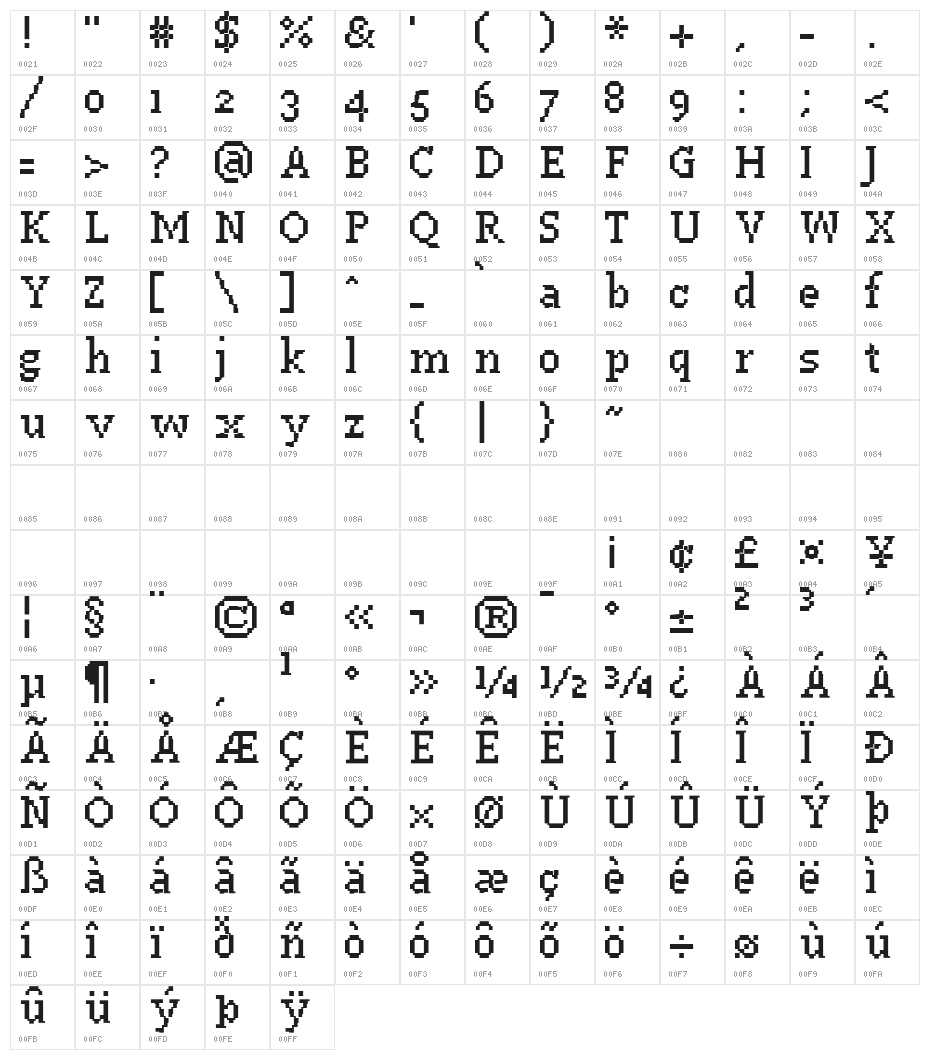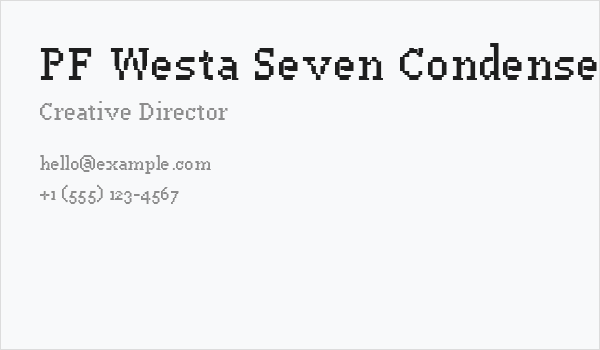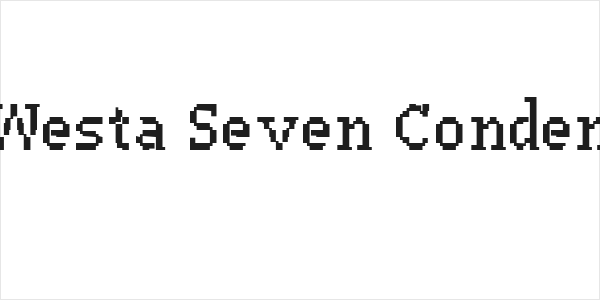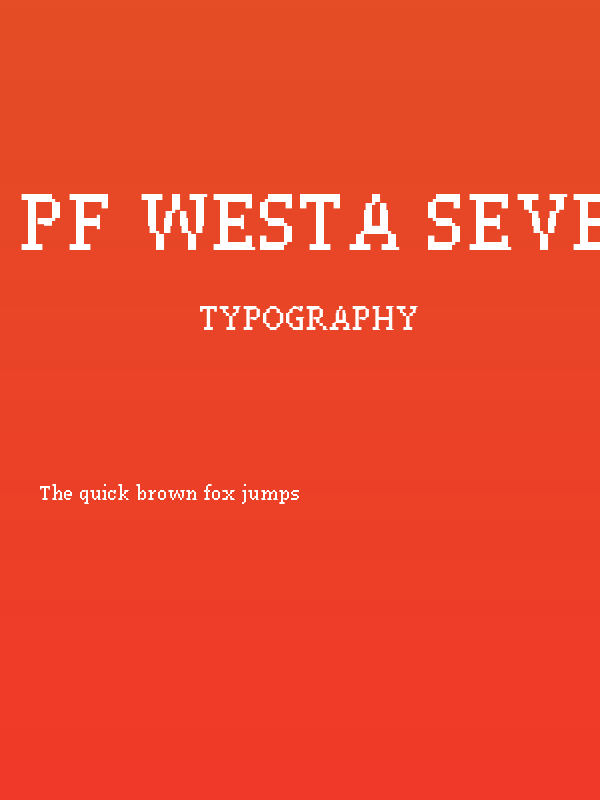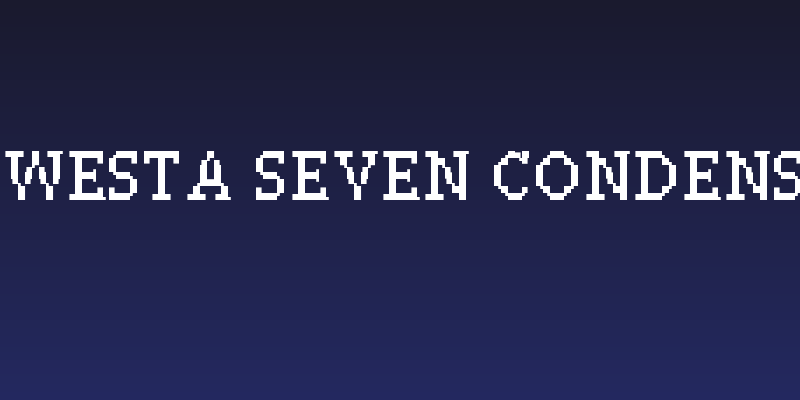
PF Westa Seven Condensed Font
PF Westa Seven Condensed Description
This font features a condensed style with a strong, geometric structure. The characters are bold and display a pixelated appearance, reminiscent of early digital typefaces. The uppercase letters are uniform in height, while the lowercase letters maintain a consistent baseline with slight variations in ascender and descender lengths. The numerals are robust and align well with the overall aesthetic, providing a cohesive look. Special characters are distinct and maintain the pixelated theme, ensuring readability and style consistency. The font's design is suitable for digital displays and projects that require a retro or tech-inspired look.
| Overall Style | Retro, Digital |
| Use Case | Headlines, Logos, Digital displays |
| Proposed Projects | Ideal for digital displays, retro-themed designs, video game graphics, and tech-inspired branding. |